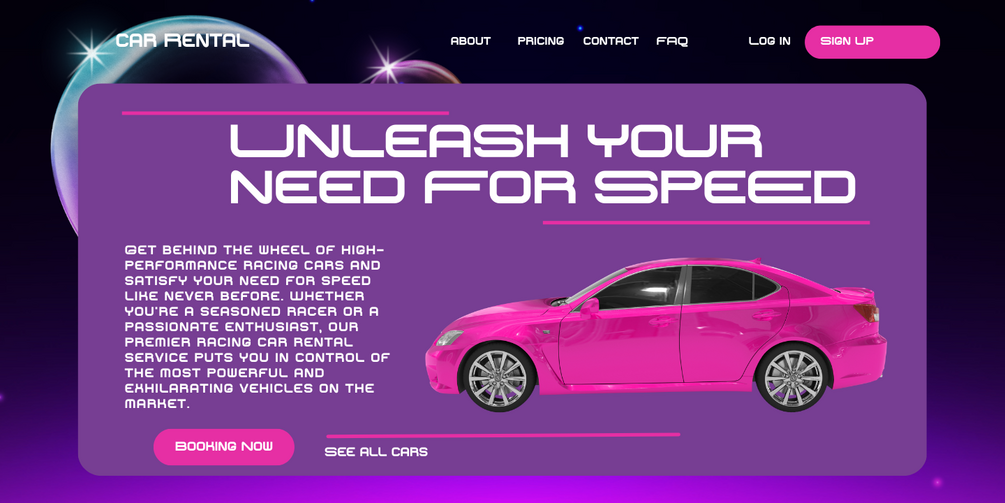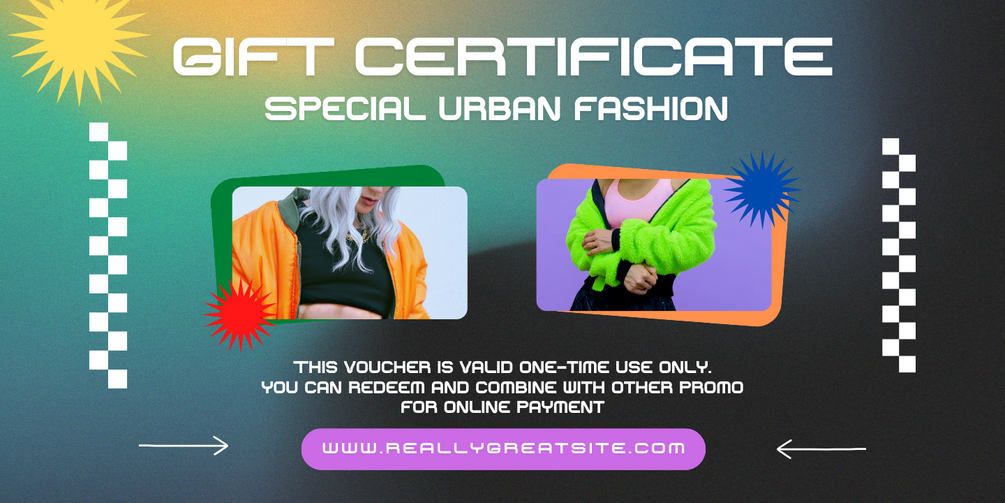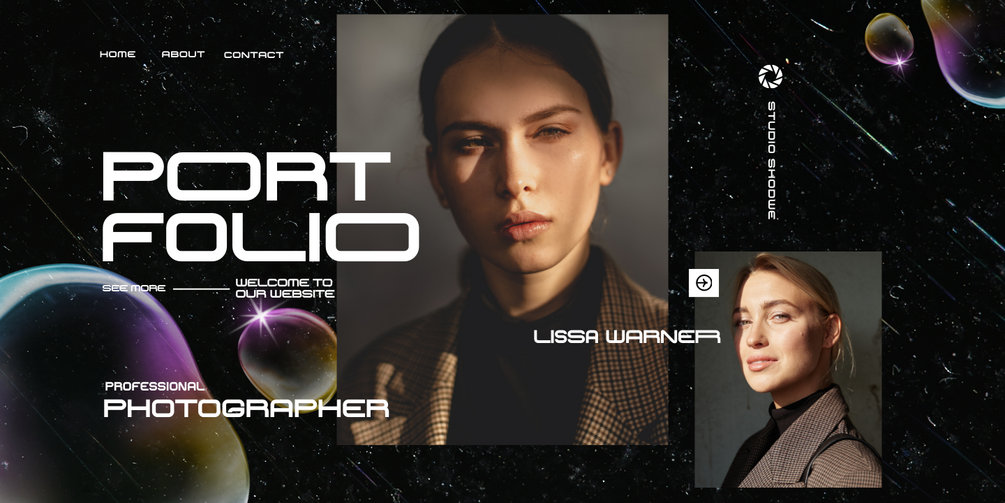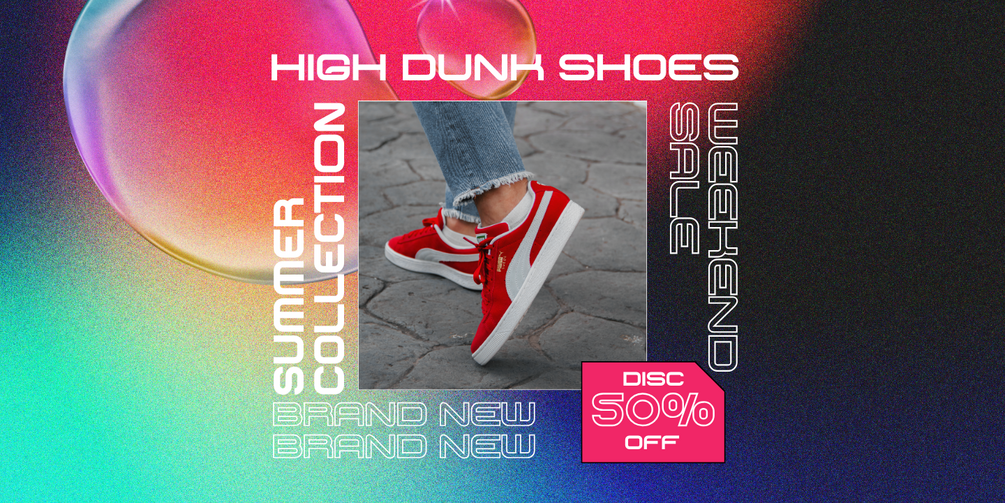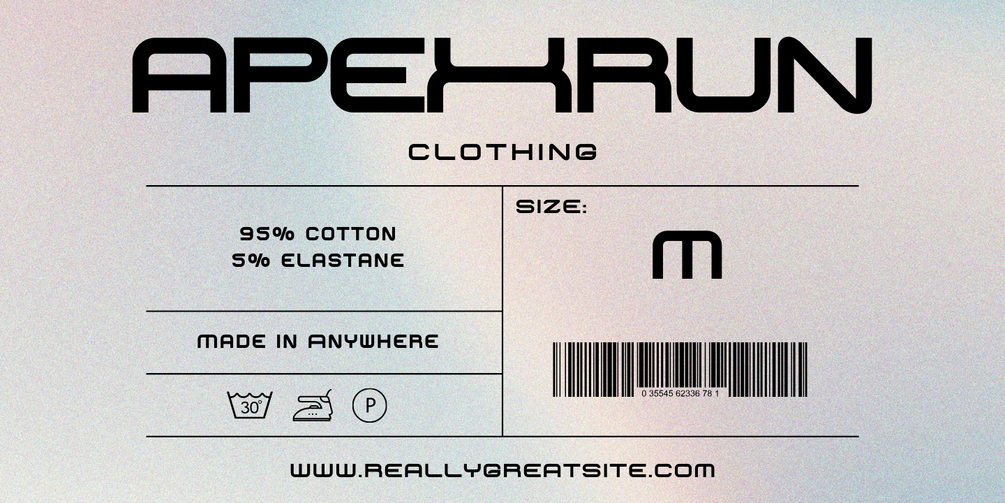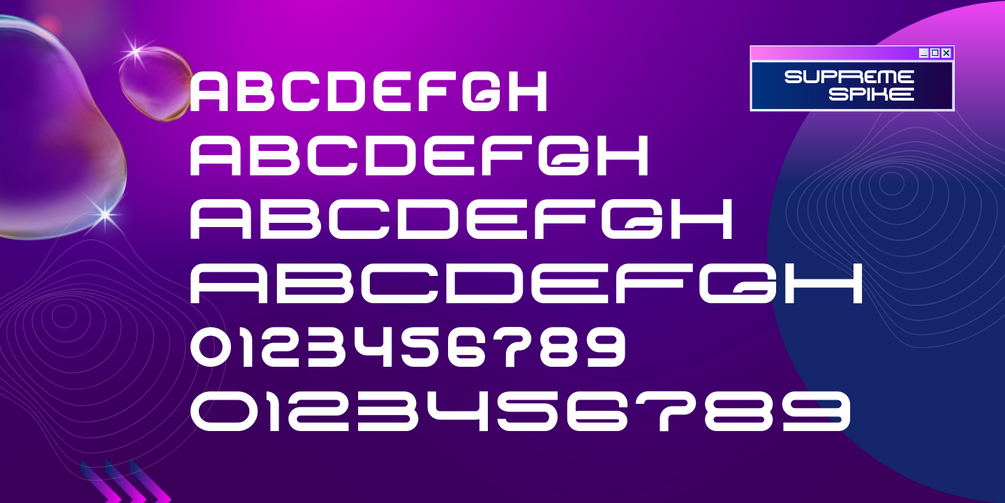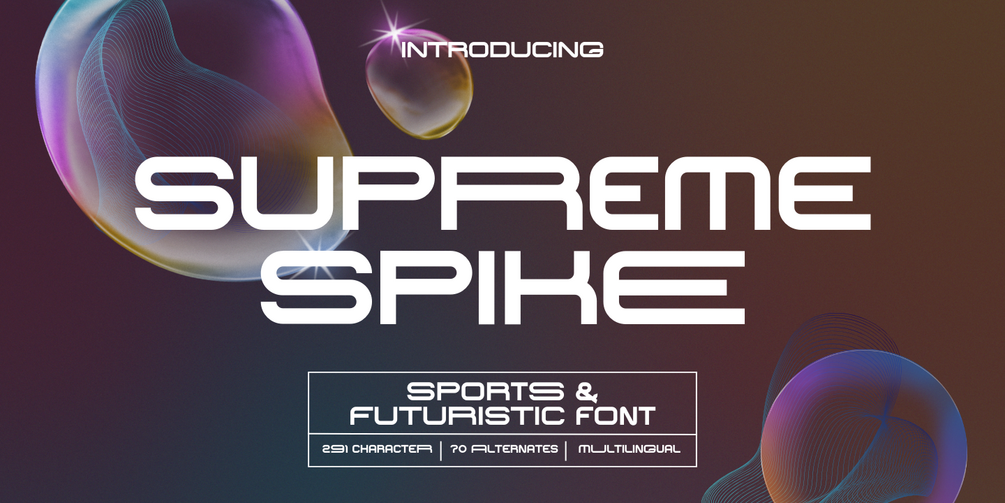
Sports & Futuristic Font | Supreme Spike
Want a font that radiates strength—without sacrificing modern style?
Introducing our latest bold sans serif, built to command attention and deliver power.
Crafted with strong lines and futuristic shapes, this font was made for high-impact themes—think sports, space, cyberpunk, and tech. Whether you’re building a logo, headline, or poster, it brings unmatched intensity to every design.
🔥 Masculine energy meets precision design
🔥 Perfect for sports branding, futuristic layouts, and bold statements
🔥 Crisp, modern, and built to dominate
⚡️ Unleash visual strength in every project.
Discover the font that’s not just bold—it's unstoppable.